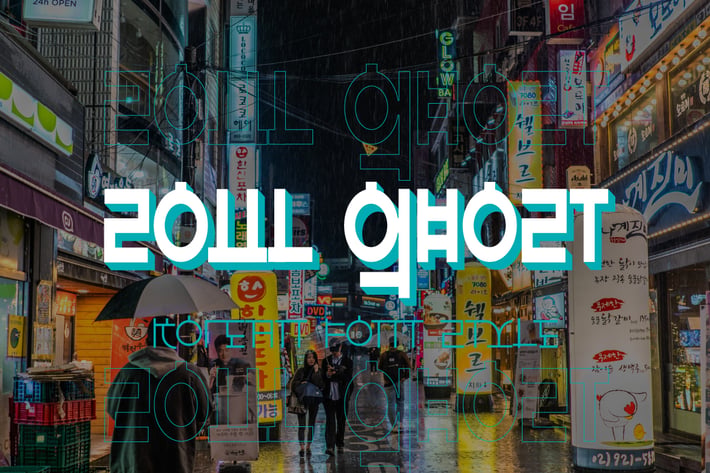
Soulghost - Korean Style Display font
Introducing Soulghost, a simple korean style display font.
So perfect for you who needs a typeface for logo designs, magazine, social media, brochure, and many more.